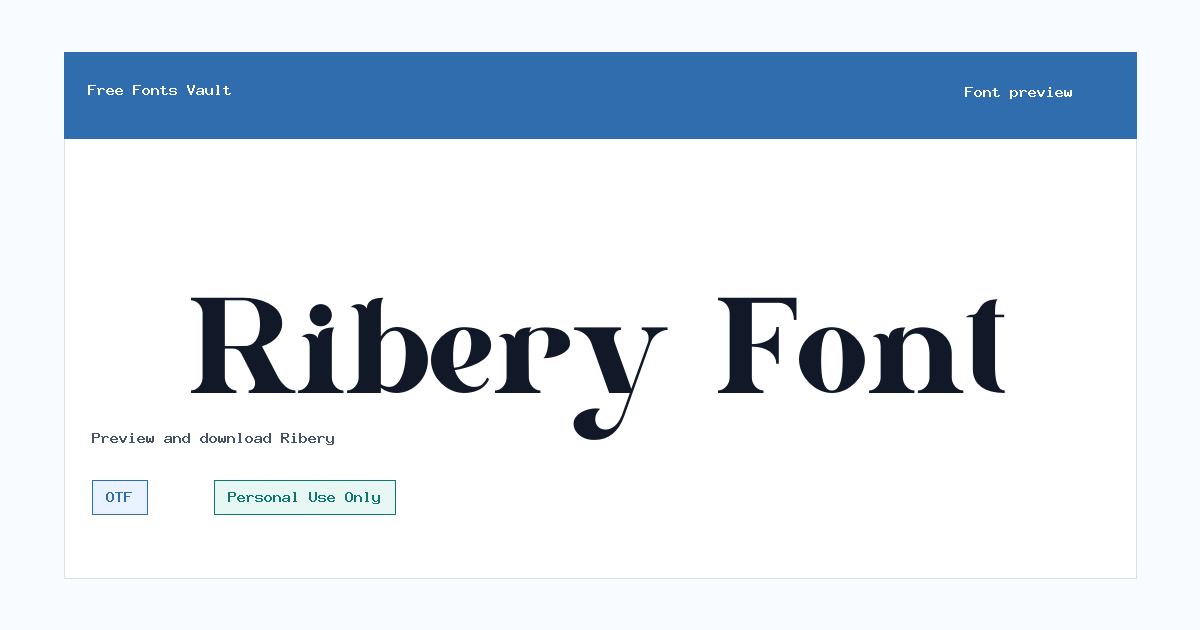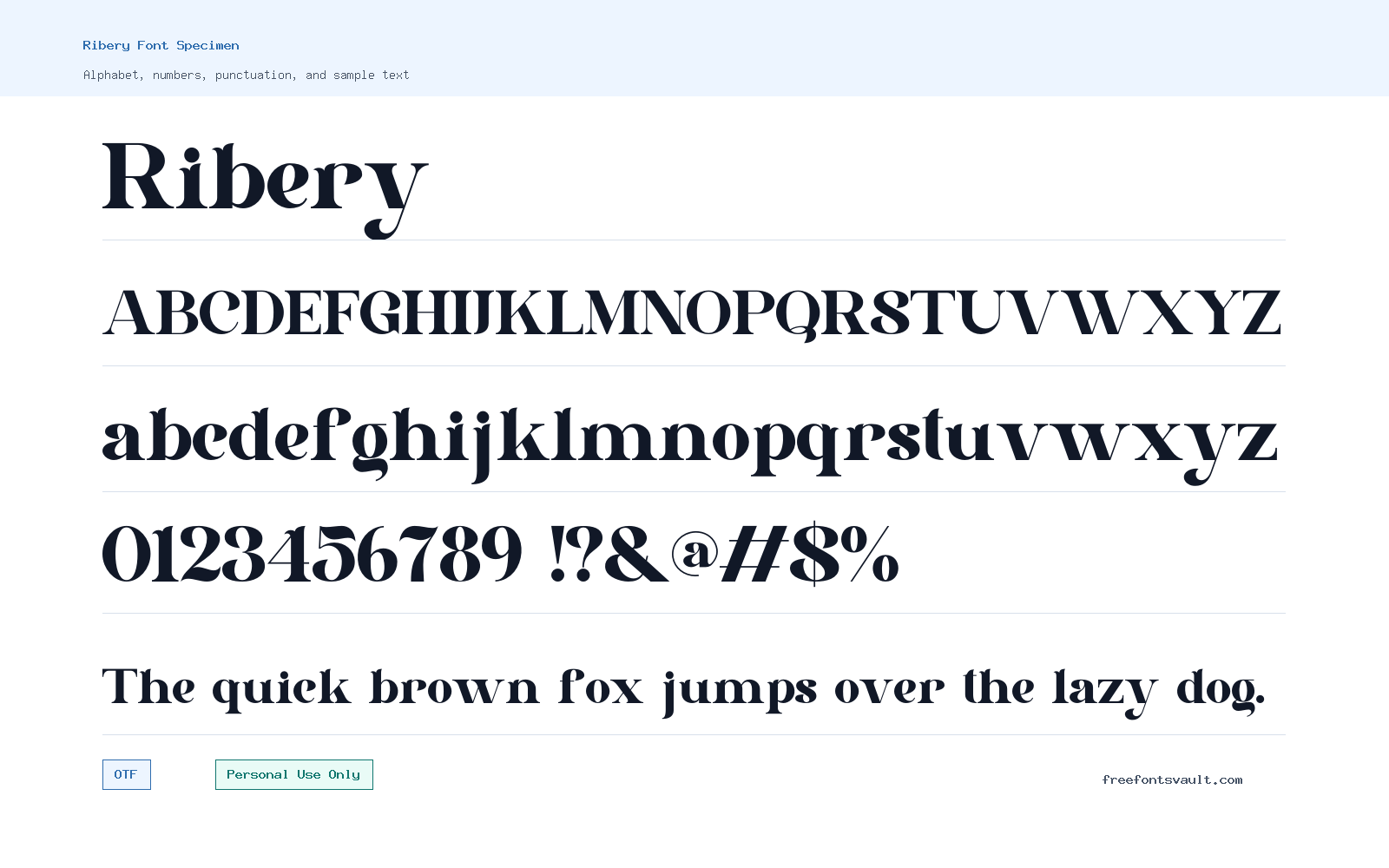
Ribery
Ribery font preview showing the family name
Ribery Font
Ribery font specimen showing alphabet, numbers, and sample text
Ribery font.
Ribery is a serif font family with a regular OTF file for visitors who want to test a clean display or text style before downloading. The license information marks it as Personal Use Only, so it is best treated as a non-commercial font unless you confirm broader rights from the designer or license holder.
About Ribery Font
Ribery is listed as a serif font by ErmediaStudio. The available style is a regular, normal-weight font file in OTF format, which makes it easy to test in many design apps and font managers. Because the public facts are limited, the safest way to judge the font is to use the preview tool with your own words rather than relying on a fixed sample. Try your brand name, a short heading, and a mixed-case sentence to see how the letters, spacing, and punctuation feel together.
• Headings, title tests, invitations, and editorial-style previews
What is Ribery best used for?
Based on the font listing, Ribery is best tested for personal projects such as headings, invitations, quote graphics, and design mockups. Confirm readability and licensing before final use.